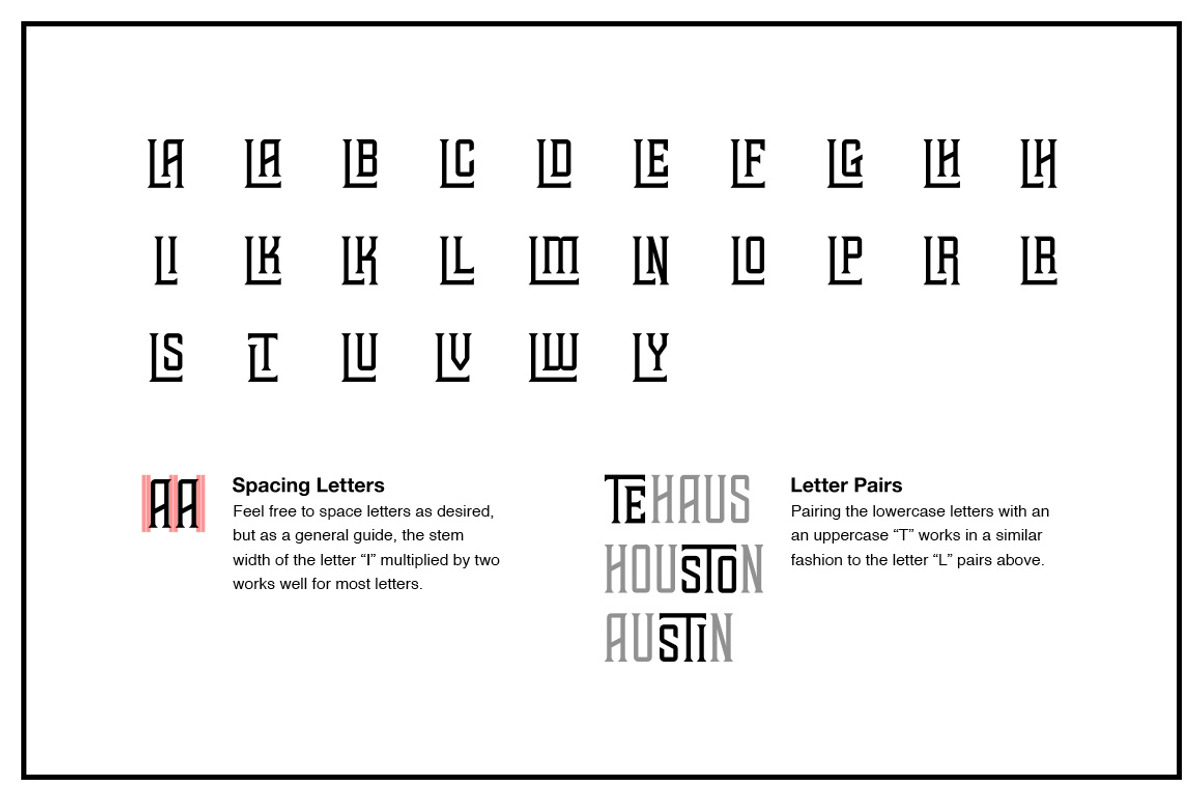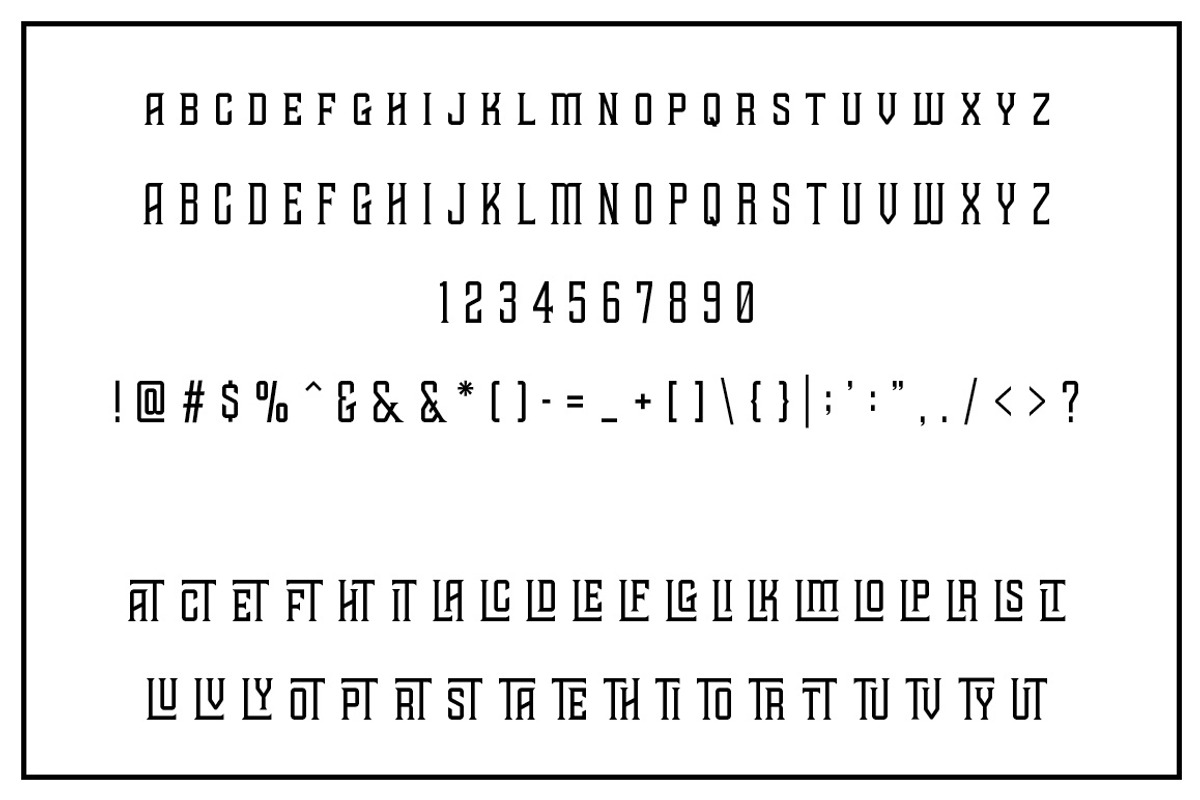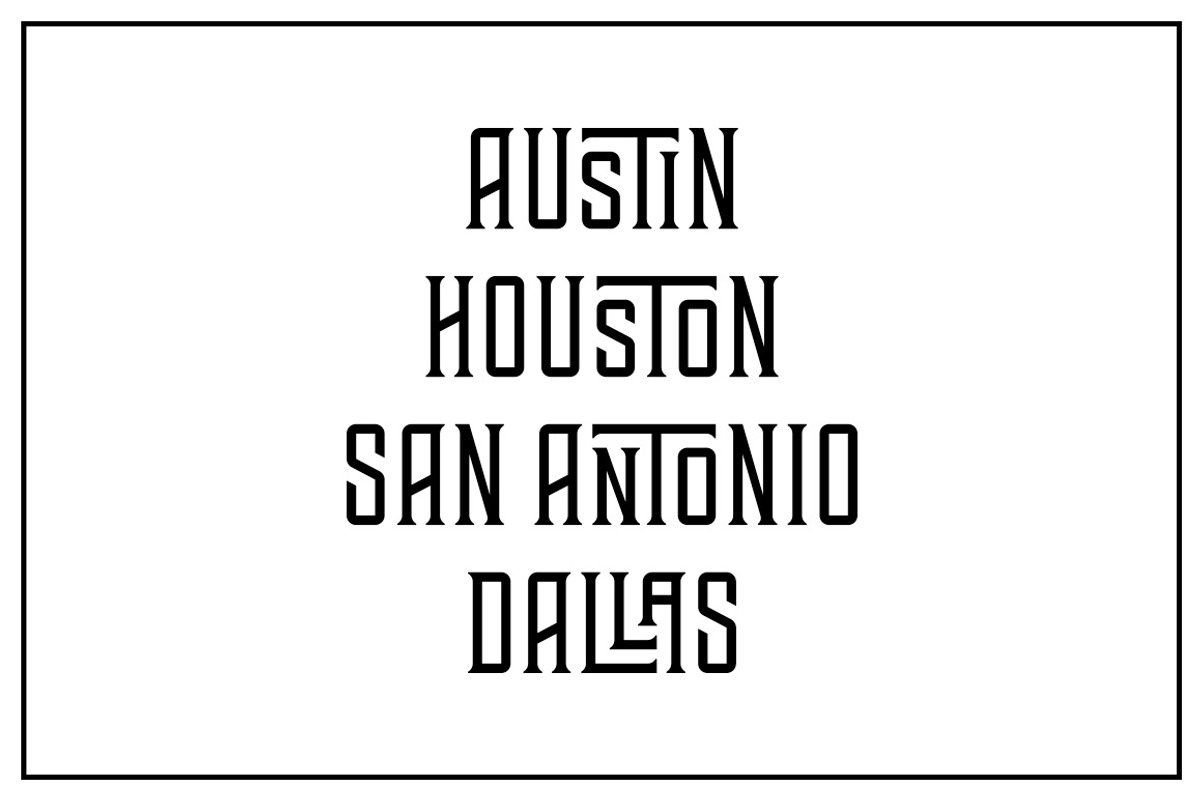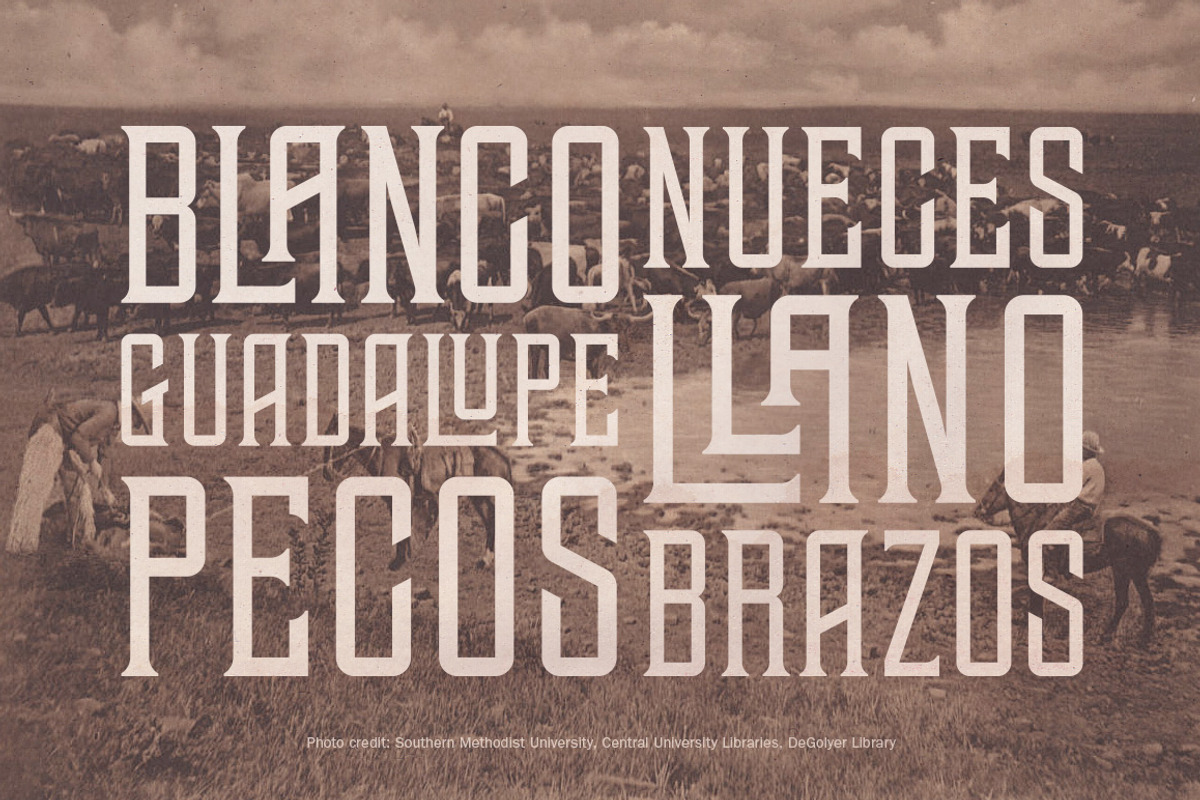
TEHAUS Typeface
TEHAUS Typeface by Brody Vercher is a font selected for branding, posters, packaging, typography.
- INCLUDES The TEHAUS font (.otf) includes uppercase and small caps characters, standard punctuation, a few alternate characters, and unique "
- The rest of the characters were eventually fleshed out into the set above.
Why TEHAUS Typeface is worth a look
TEHAUS Typeface by Brody Vercher fits naturally into Branding, posters, packaging, typography.